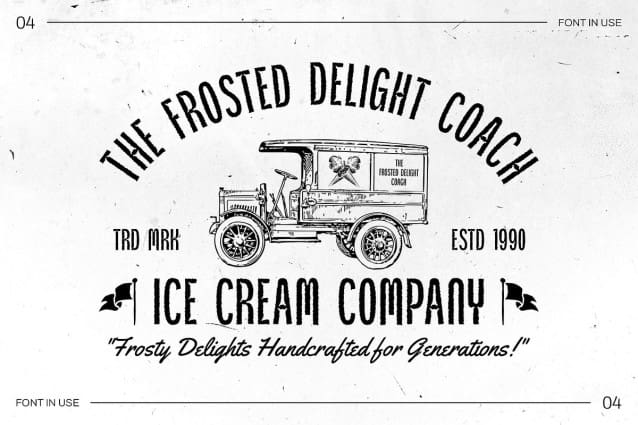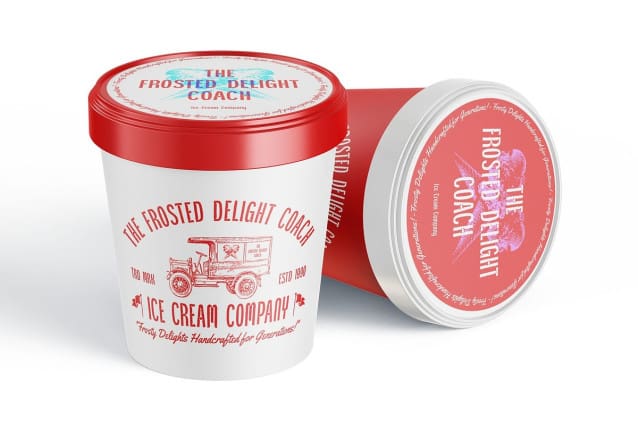
Mareday Rough Font
Mareday Rough Font is a modern sans serif font characterized by its innovative inktrap shapes and condensed form, layered with a distinctive rough texture. This design approach delivers a striking blend of strength and character, ensuring that the font stands out in any design context. The inktrap details enhance readability, allowing ink to pool in specific areas for a clean and professional look, perfect for today’s fast-paced visual landscape.
Space-Efficient Design for Versatile Applications The condensed structure of Mareday Rough maximizes space efficiency, making it ideal for layouts where every inch counts. Whether used in headlines, product packaging, or promotional materials, this font fits seamlessly into various designs while maintaining clarity and impact. Its versatility ensures that it can adapt to numerous applications, from corporate branding to artistic projects.
Organic Texture for a Touch of Rawness Layered with a rough texture, Mareday Rough introduces an organic, gritty quality that injects a sense of rawness and authenticity into your designs. This unique feature allows the font to resonate with audiences who appreciate a blend of contemporary aesthetics and earthy charm. The rough effect enhances the overall visual appeal, making it a great choice for projects that aim to convey a story or evoke emotion.